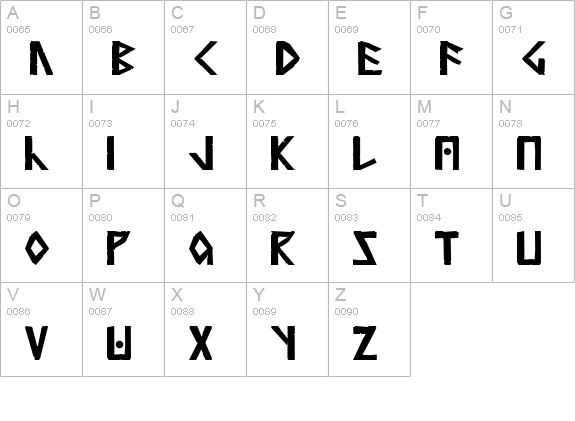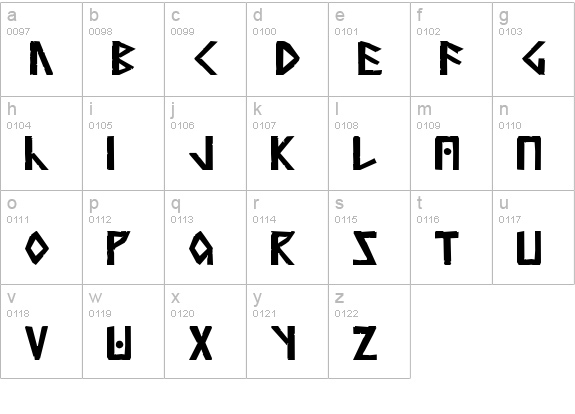
Simple Runes Normal Font Details
Simple Runes Normal is the standard, neutral variant in the Simple typeface family \xE2\x80\x94 well suited to general body text, paragraphs, and standard typographic work.
Simple Runes Normal is a versatile and elegant font that effortlessly blends modern simplicity with timeless sophistication. With its clean lines and balanced proportions, this font captures the essence of minimalism while exuding a sense of refined style. Perfect for a wide range of design projects, from branding and logo design to editorial layouts and web design, Simple Runes Normal is a go-to choice for designers seeking a versatile and reliable font. What sets Simple Runes Normal apart is its ease of use. The letters are carefully crafted to ensure legibility at any size, making it ideal for both small and large-scale applications. Whether it's used for headlines, body text, or captions, this font remains clear and readable, maintaining its elegant appearance in any context. As an added bonus, Simple Runes Normal is freely available to download at FontsMarket.com. This means that designers can easily access and incorporate this remarkable font into their projects without any cost or limitations. Embracing the concept of democratizing design, Simple Runes Normal offers a level of accessibility that allows designers to create stunning works of art without breaking the bank. With its timeless design and effortless versatility, Simple Runes Normal is a true gem in the world of typography. Its clean lines and balanced proportions make it a reliable choice for any design project, while its availability as a free download at FontsMarket.com ensures that it can be enjoyed by designers of all backgrounds and budgets. Embark on your creative journey and elevate your designs with the elegant simplicity of Simple Runes Normal.